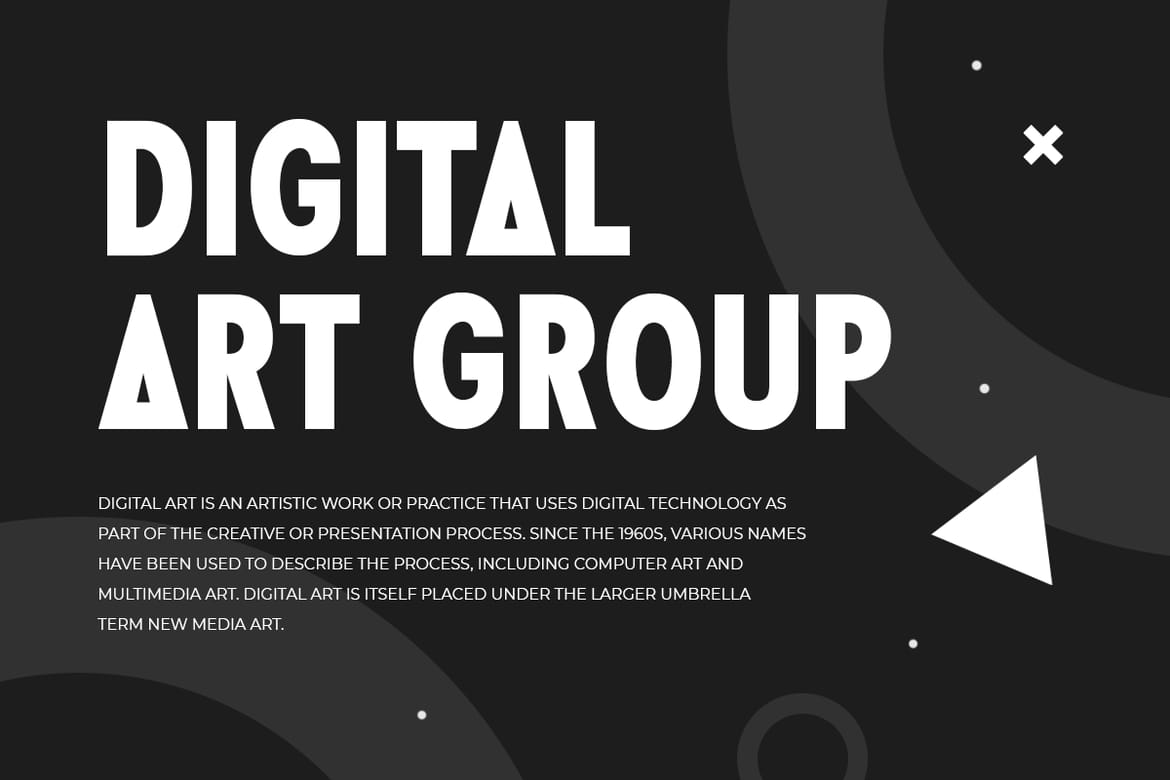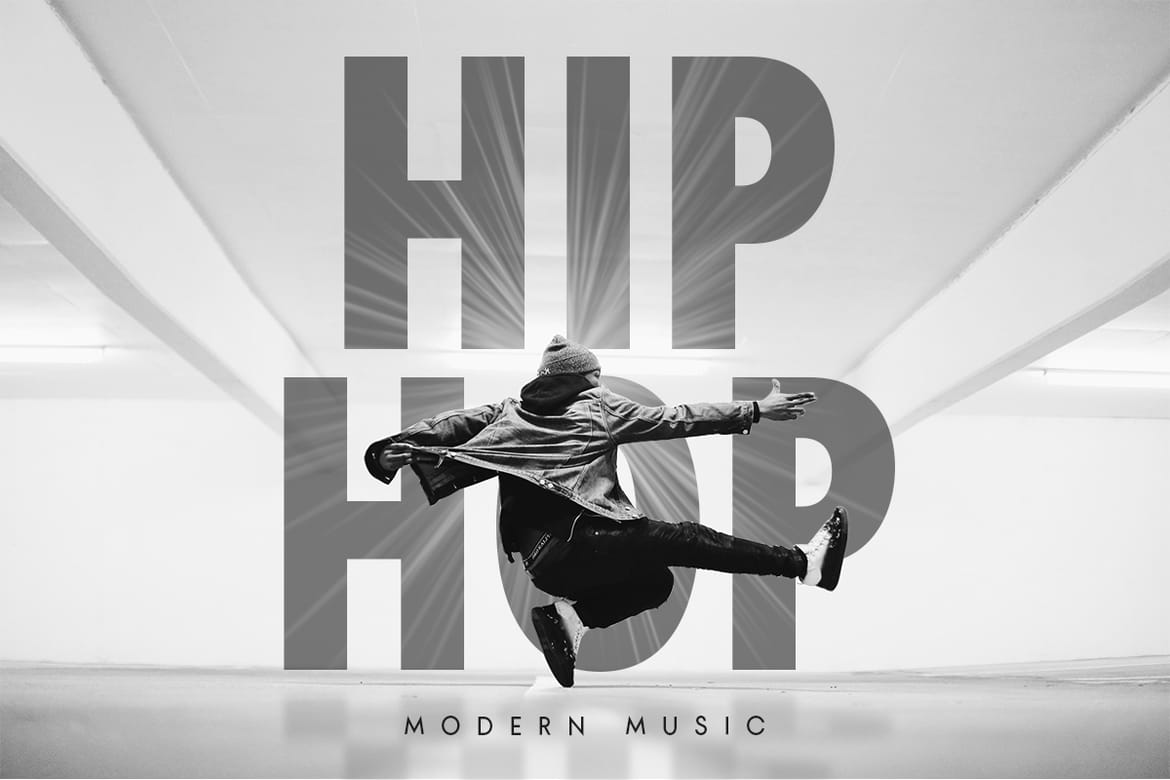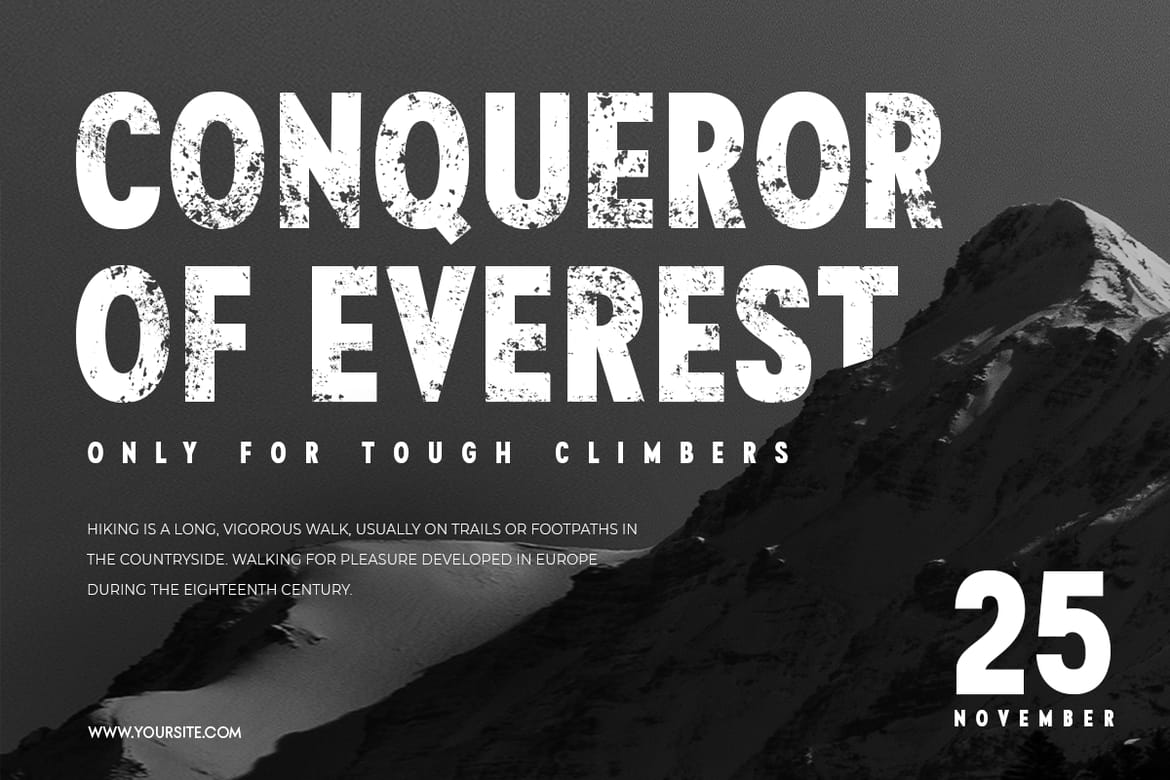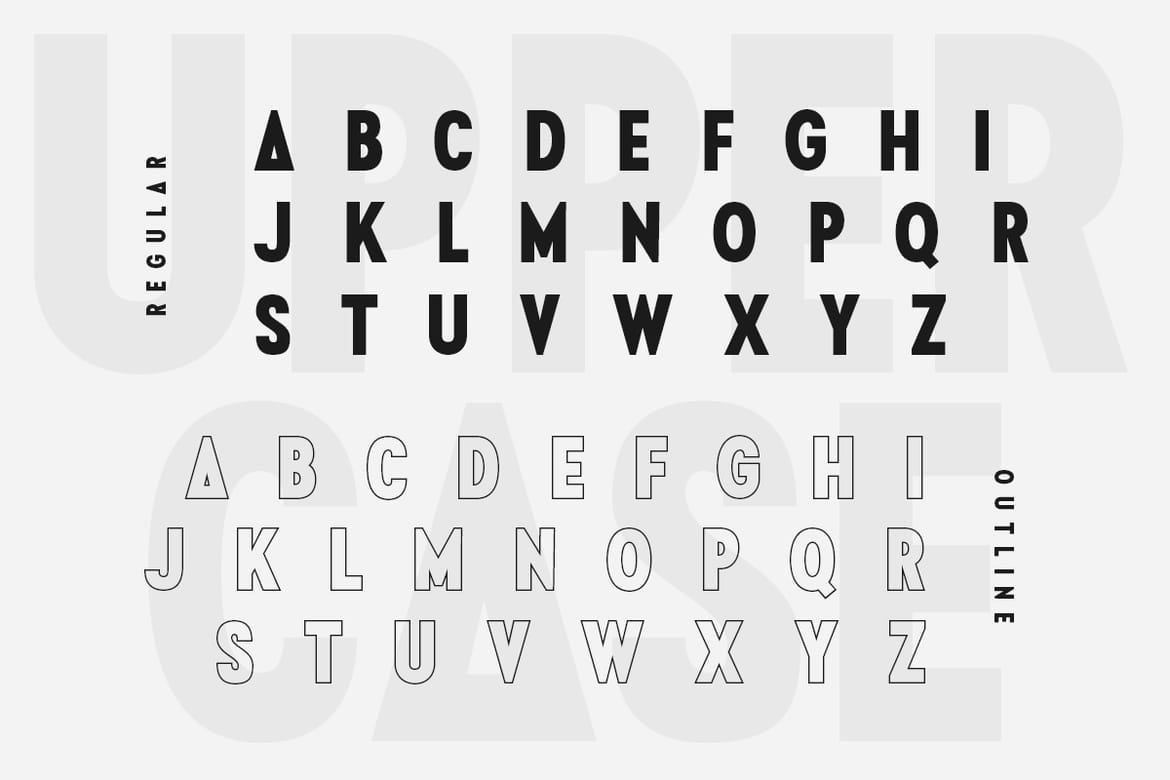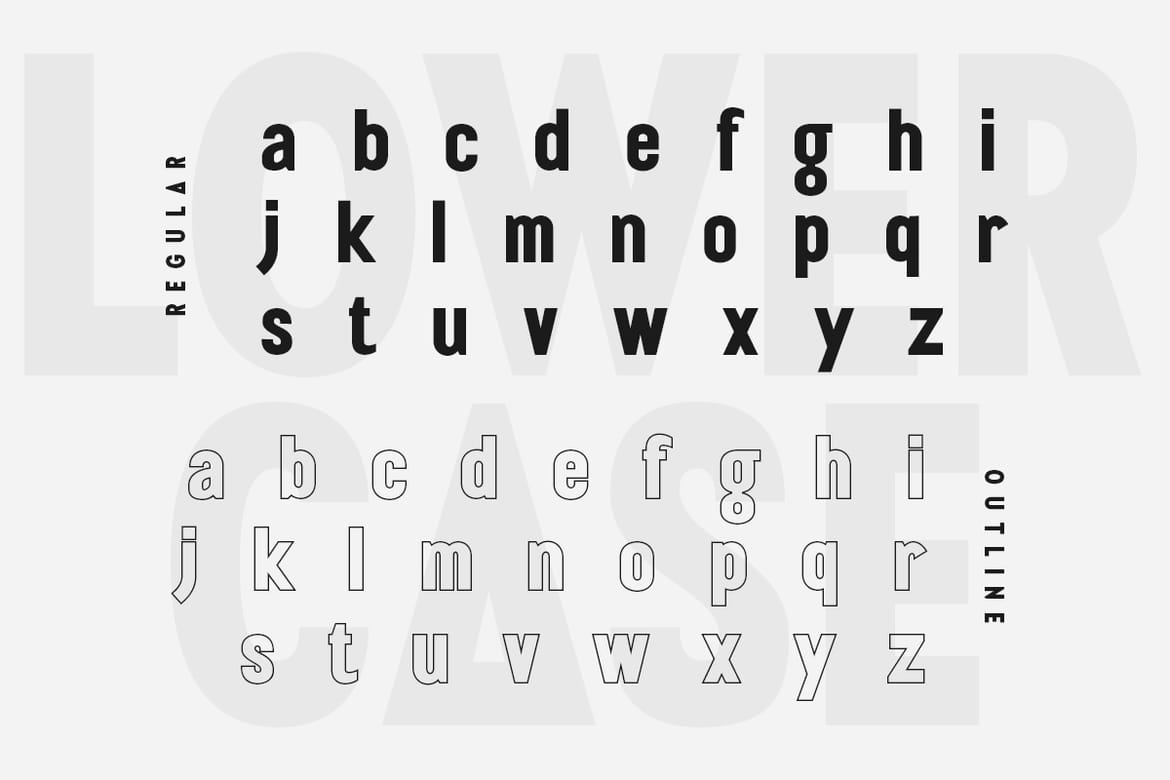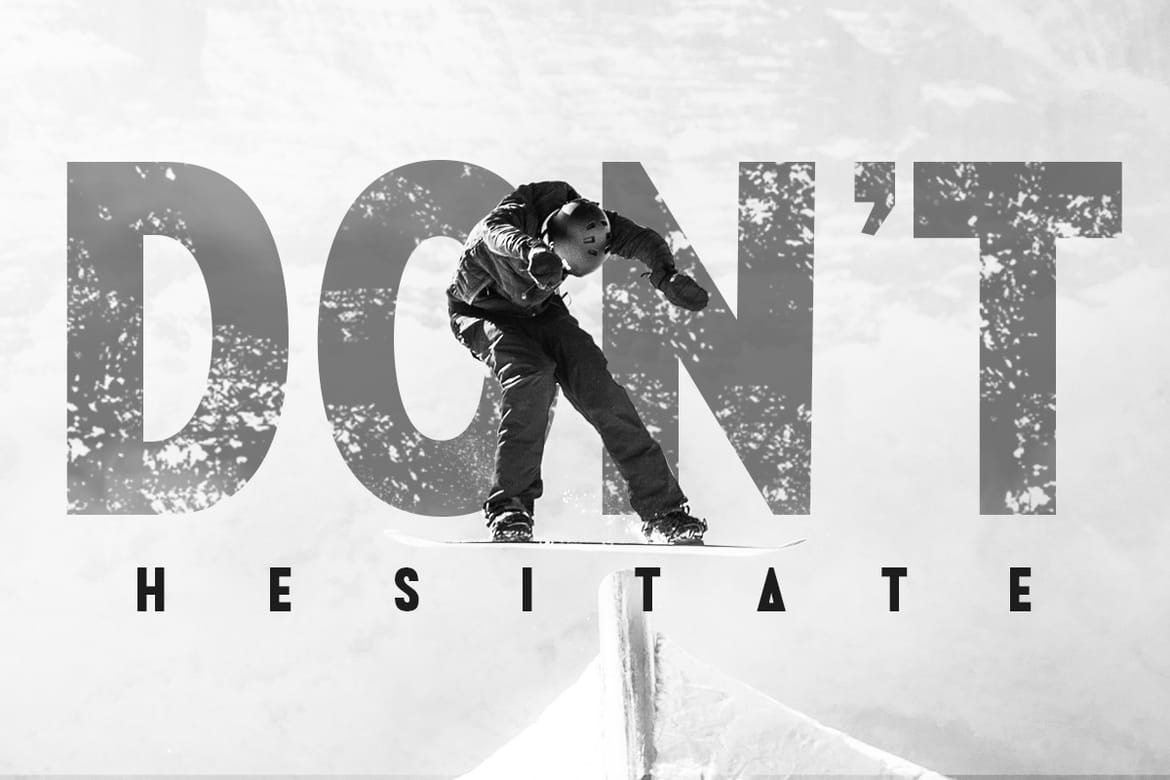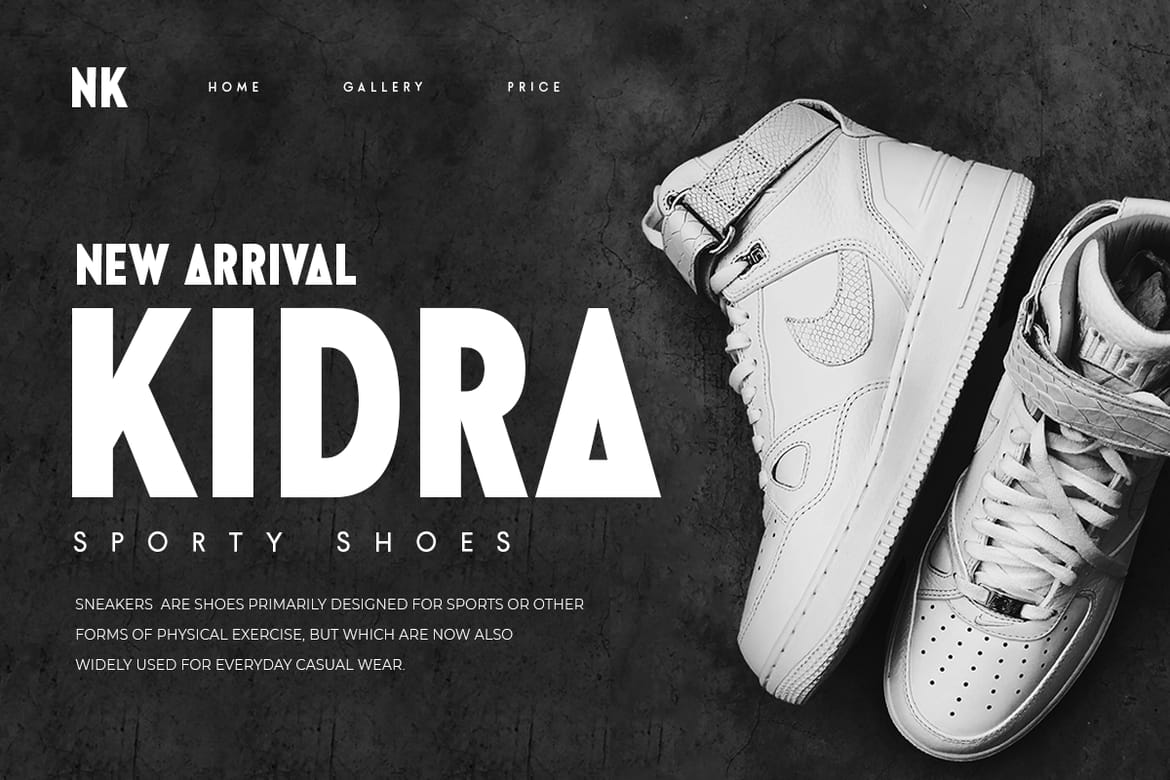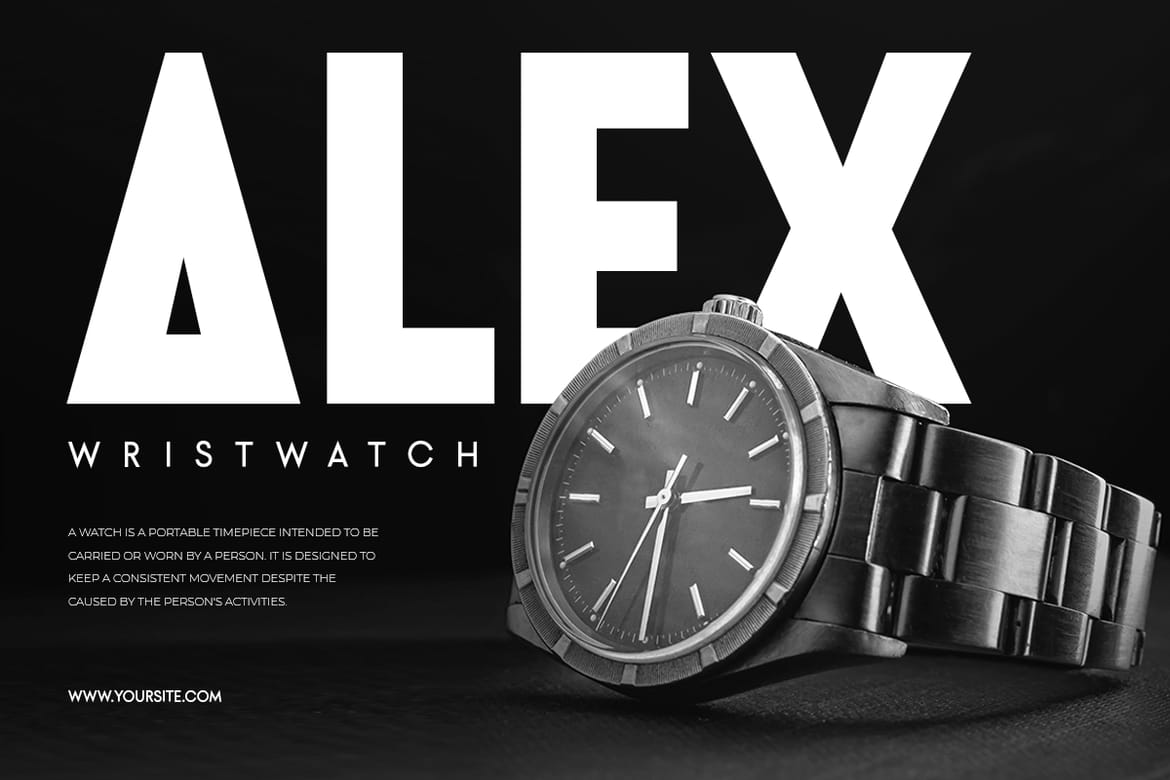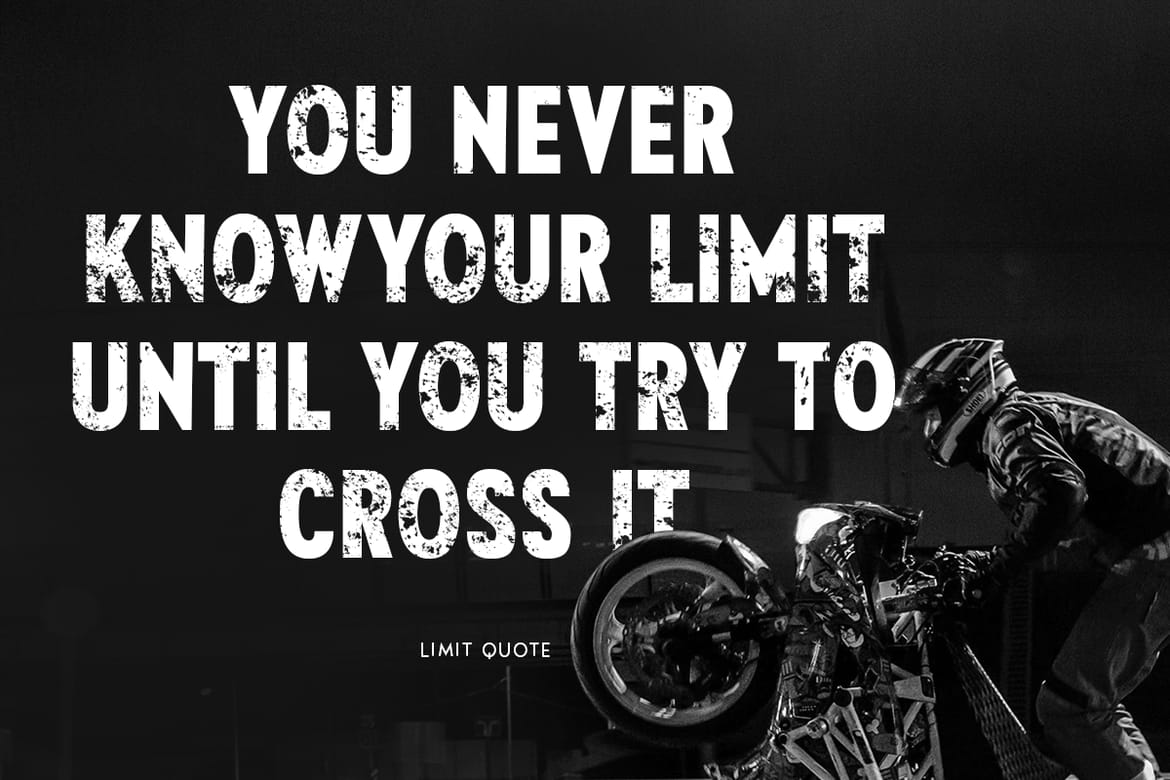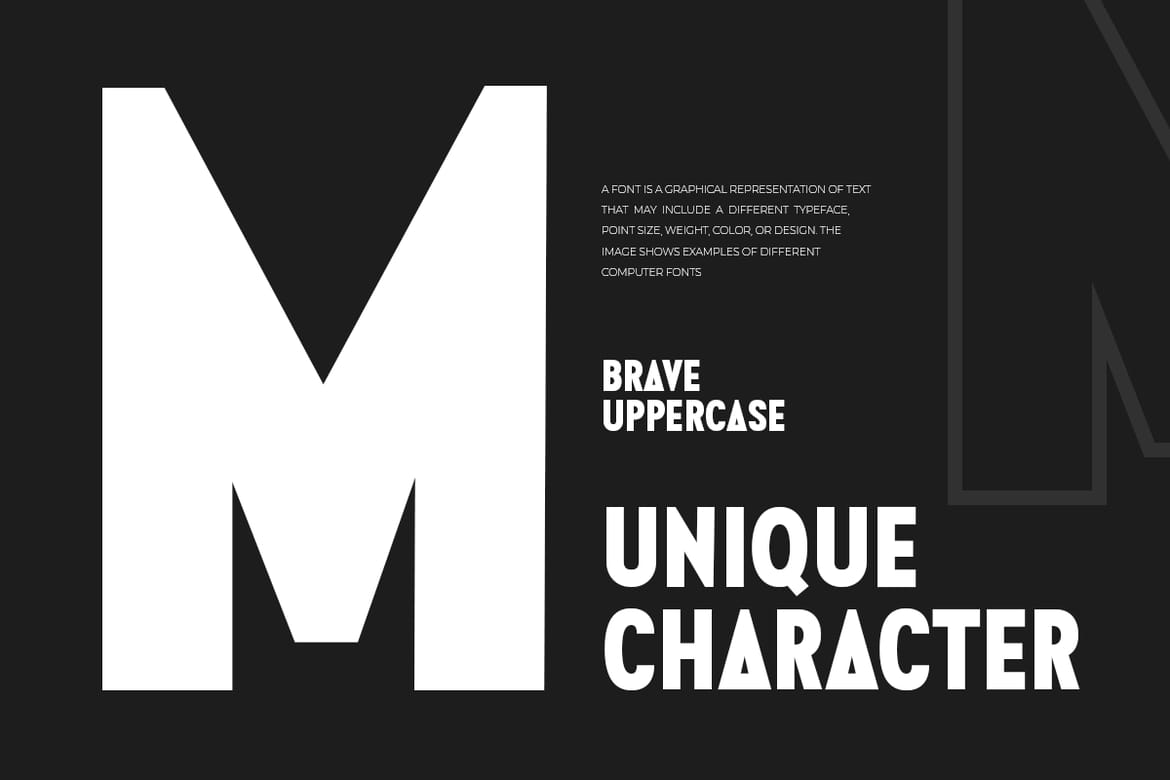
Brave - Modern Condensed Font
Modern condensed font perfect for headlines and branding needs with extra bold character style. Ready with various alternate characters and ligatures for creative variations and modern feel.
• Bold condensed font
• Headlines and branding
• Modern character design